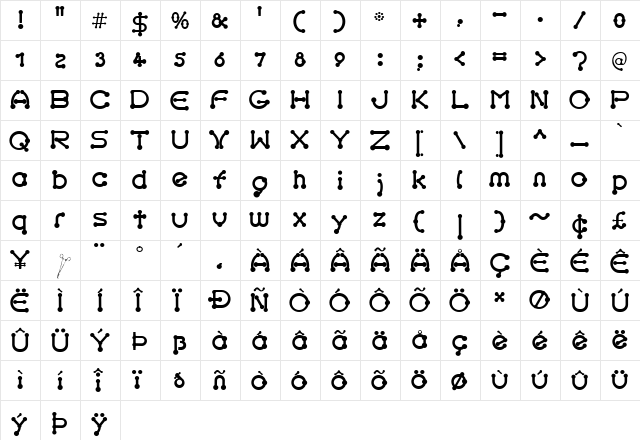
pierced Regular Font Preview
pierced Regular
pierced Regular Font Details
| Foundry | Otto Maurer |
| Designer | Otto Maurer |
Design Context for pierced Typeface
pierced is a composed and adaptable typeface that performs quietly and consistently across a wide range of design contexts.